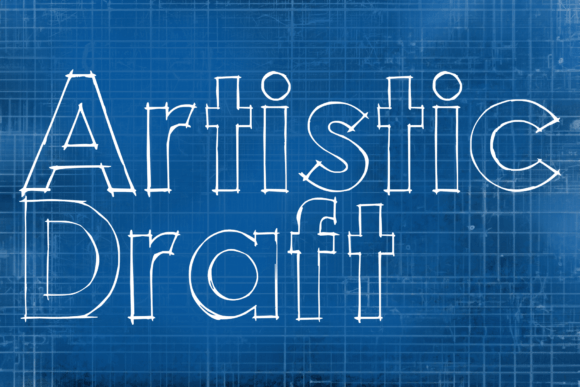
Unleashing the Power of Artistic Draft Font
I’ll never forget the design struggle I faced while working on a client’s project – a quirky, vintage-inspired t-shirt design that required a unique font to bring it to life. After hours of scouring the internet for the perfect font, I stumbled upon Artistic Draft font, and it was love at first sight! 💕 Inspired by the intricate lettering of architectural drawings, this delicate outline font effortlessly elevates larger-scale graphics, breathing life into T-shirts, postcards, signs, and every artistic endeavor.
What I Love About Artistic Draft Font
- ✨ Elegant, intricate details that add a touch of sophistication to any design
- ✅ Highly versatile and adaptable to various design projects, from t-shirts to signage
- 💫 Beautifully crafted to work seamlessly in larger-scale graphics
- 🎨 OpenType features and glyphs that allow for creative experimentation
While Artistic Draft font is an amazing addition to any design project, there are a few things to keep in mind: 🤔
- ⚠️ Limited availability of certain characters, which may require manual adjustments or substitutions
- ⚠️ May not be suitable for very small font sizes or detailed, intricate designs
Artistic Draft font was inspired by the beautiful, intricate lettering found in architectural drawings. The font’s creator, a passionate designer with a love for architecture and typography, sought to capture the essence of these drawings and bring them to life in a digital format. The result is a font that’s both elegant and versatile, perfect for a wide range of design projects.
| Font Name | Artistic Draft Font |
| Author | phelans-fontastic-ventures |
| What is Artistic Draft font inspired by? | The intricate lettering of architectural drawings. |
| What type of projects is Artistic Draft font best suited for? | T-shirts, postcards, signs, and other larger-scale graphics. |
| Are there plans to expand the character set of Artistic Draft font? | Yes, the font is continuously being updated with new characters and features. |
With Artistic Draft font, you’ll be able to elevate your projects with its irresistible charm and versatility. Stay ahead of the curve and experience the power of this beautiful font for yourself! 💫